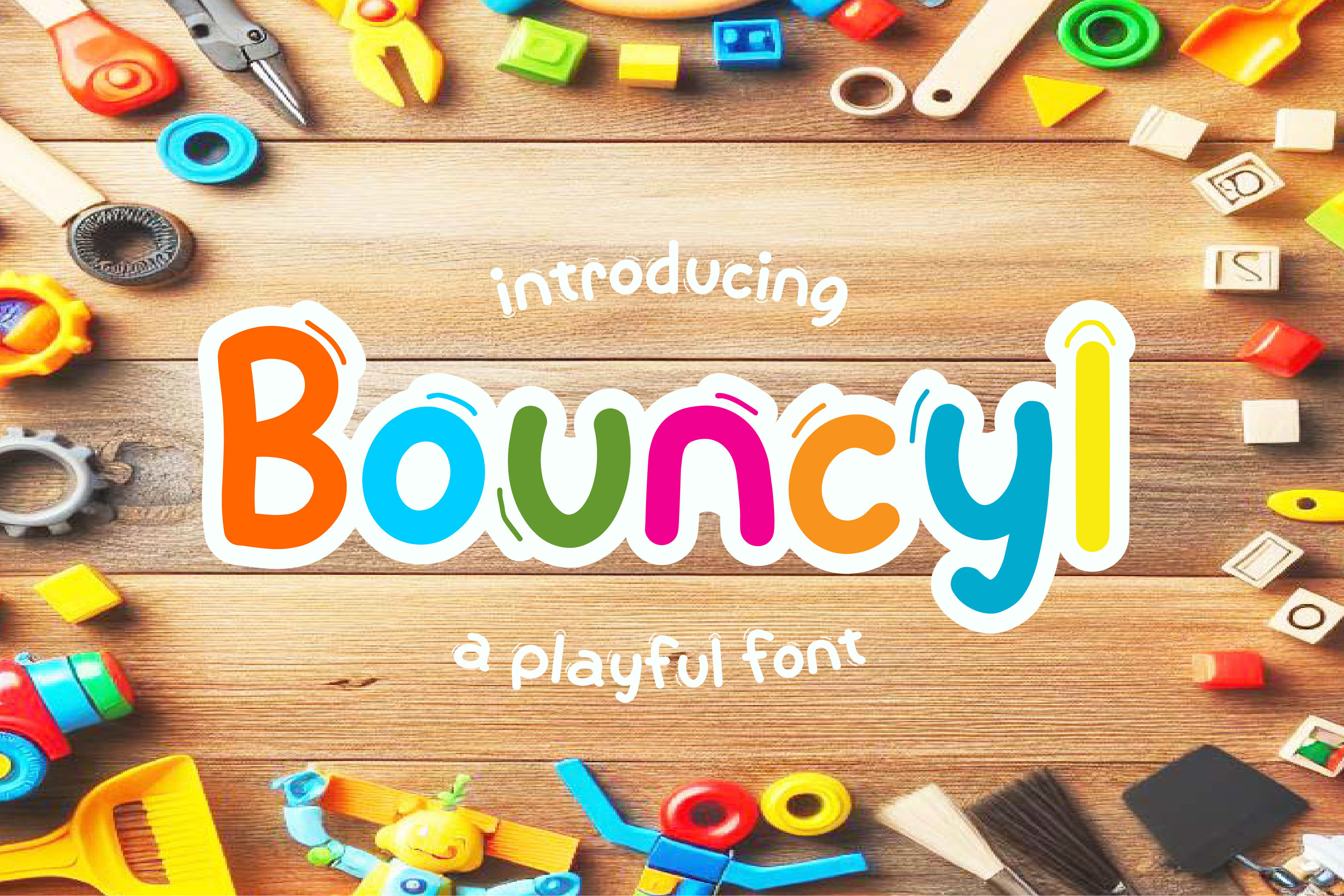
Bouncyl Joy & Fun Font
Bouncyl embodies the essence of natural joy and exudes a playful charm, making it the ideal typeface for joyful occasions requiring a handcrafted touch.
This versatile font is exceptionally well-suited for a myriad of creative endeavors, including branding projects, logo design, wedding invitations, social media posts, advertisements, product packaging, product designs, labels, photography, watermarks, invitations, stationery, and any project that calls for the warmth and authenticity of handwritten aesthetics. Elevate your designs with the distinctive and lively spirit of Bouncyl.